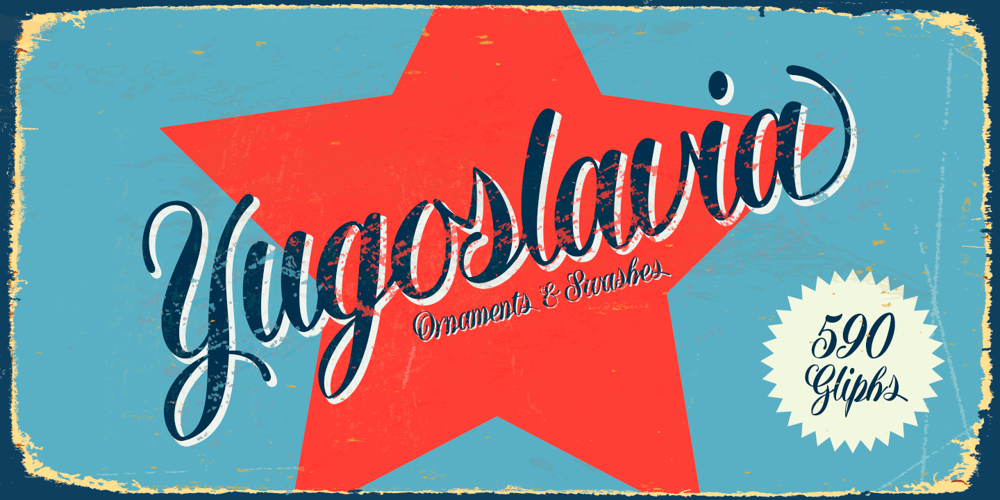
Yugoslavia
Yugoslavia font
Yugoslavia Font Family was designed by Fernando Haro and published by deFharo. Yugoslavia contains 1 styles and family package options. Yugoslavia is an elegant human-looking calligraphic font, made with pen and inspired by classic concatenated typefaces that were born in the nineteenth century and are still in force today. The font includes an additional full set of lowercase swashes for use at the end of words, plus a set of 8 reversible ornaments for captions and decoration of phrases and titles, and 3 strokes of different styles for highlighting and embellishing words. This font is ideal for designing greeting cards or weddings, invitations, diplomas, etc. Where you can print a classic style, luxurious or elegant and that in turn transmits, to the design, tradition and history.